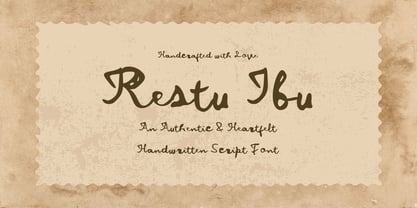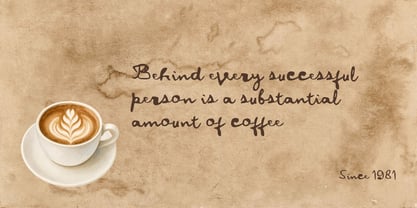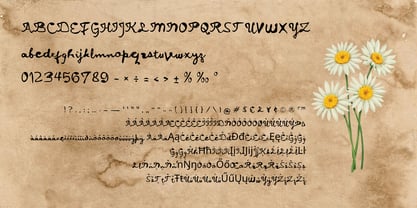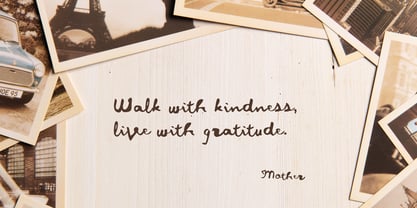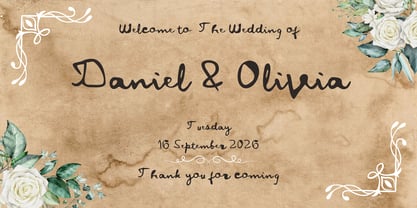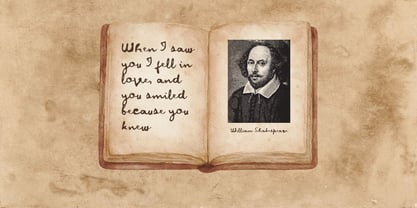
Restu Ibu Script
von Kalam
Die Schriftfamilie Restu Ibu Script wurde von Wahyu Eka Prasetya, Moch Zamroni entworfen und von Kalam veröffentlicht. Restu Ibu Script enthält 1 Stile. Mehr über diese Familie
Restu Ibu is an authentic, expressive handwritten script font crafted with a warm, soulful, and nostalgic touch. Named after the heartfelt Indonesian blessing of a mother’s grace and approval, this typeface embodies genuine warmth, personal affection, and organic handwriting aesthetics.
Featuring charming monoline strokes, casual cursive flow, and delicately looped uppercase letterforms, Restu Ibu brings a human, intimate presence to modern graphic design. Its natural pen-like movement and relaxed baseline provide effortless rhythm, turning ordinary headlines into personalized handwritten statements.
Ideal Design Applications
• Wedding & Event Stationery: Romantic invitations, RSVP cards, greeting cards, thank-you notes, and envelope calligraphy.
• Artisanal & Boutique Branding: Bakery logos, handmade craft packaging, organic beauty labels, florist identities, and boutique tags.
• Merchandise & Quotes: Motivational quote prints, graphic t-shirts, tote bags, mug prints, and decorative stickers.
• Editorial & Social Media: Book covers, recipe journals, personal blog headers, YouTube thumbnails, and Instagram story graphics.
Key Features
• Complete set of decorative script uppercase letters and fluid lowercase characters
• Full numeric set (0–9) and essential punctuation
• Smooth vector paths optimized for crisp digital rendering and clean vinyl/laser cutting
• Natural, handcrafted flow that gives every layout a personal, heartfelt voice
Pairing Recommendations
For optimal visual hierarchy, pair Restu Ibu with a clean geometric sans-serif (such as Montserrat, Lato, or Inter) for supporting body text, or combine it with an elegant, high-contrast serif for high-end packaging and editorial layouts.
Add warmth, nostalgia, and a personal human touch to your creative projects with Restu Ibu—the quintessential handwritten script for heartfelt designs.